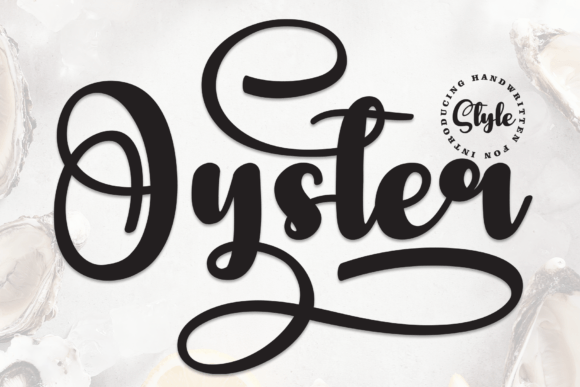
Step into the realm of elegance and charm with Oyster Font, a delightful handwritten display font that exudes warmth and personality. Crafted by the talented William Jhody, Oyster offers a whimsical touch to your creative projects, making it the perfect choice for heartfelt designs.
With its playful curves and lively strokes, Oyster captures the spirit of joy and celebration. Each letter dances across the page, carrying a message of love and happiness. The font's unique ligatures and alternates add an extra layer of charm, ensuring that your designs stand out from the crowd.
Whether you're creating wedding invitations, greeting cards, or whimsical posters, Oyster Font is your perfect companion. Its versatile nature makes it suitable for a wide range of projects, from personal branding to social media graphics. Unleash your creativity and let Oyster transform your designs into works of art.
Embrace the beauty of imperfection with Oyster Font. Its hand-drawn charm adds a touch of authenticity and warmth to your creations. Let your words flow with grace and personality, capturing the hearts of your audience.
Don't settle for ordinary fonts. Elevate your designs with Oyster Font and immerse yourself in a world of creativity and joy. Experience the magic of handwritten elegance and watch your projects come to life.